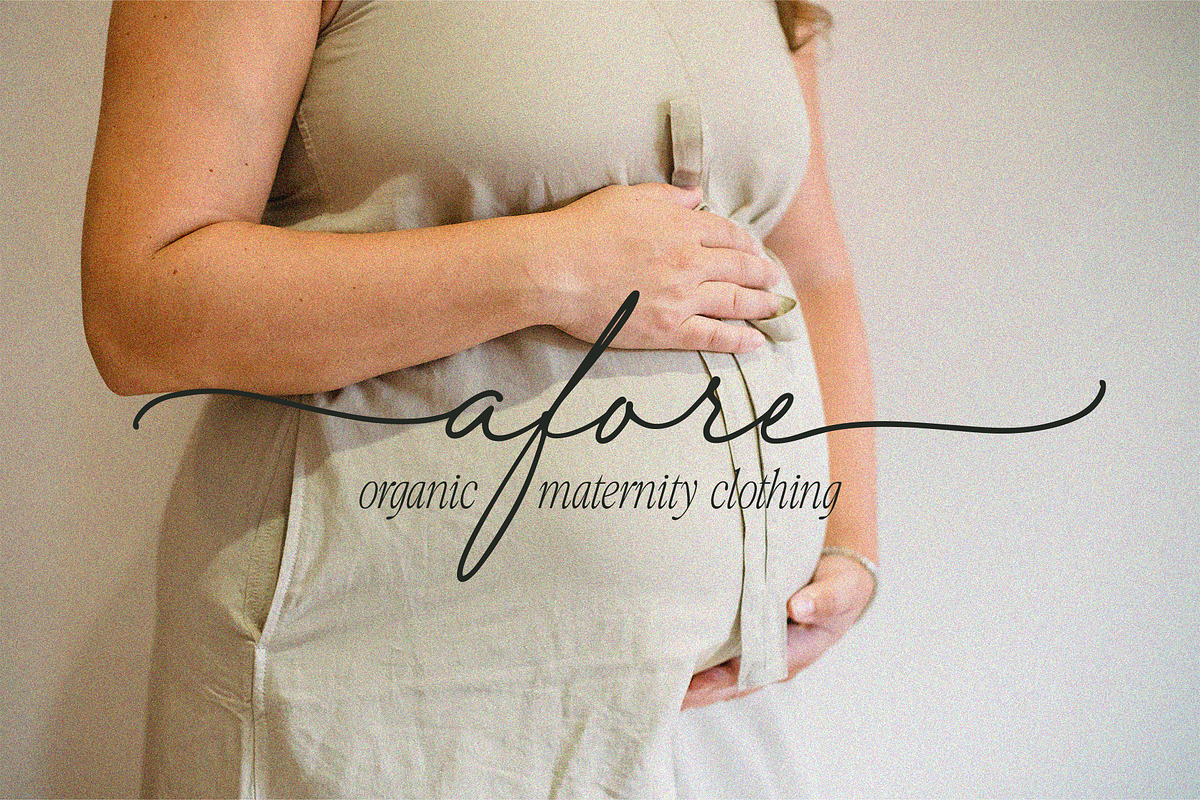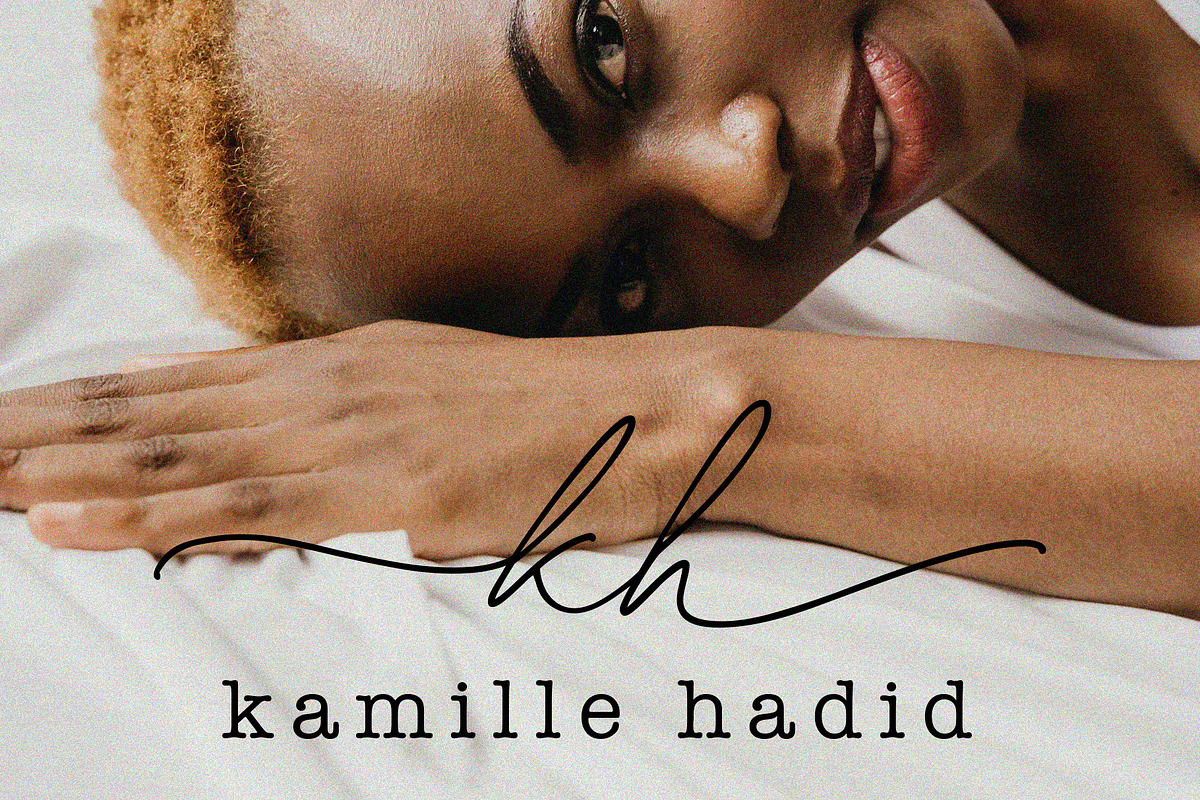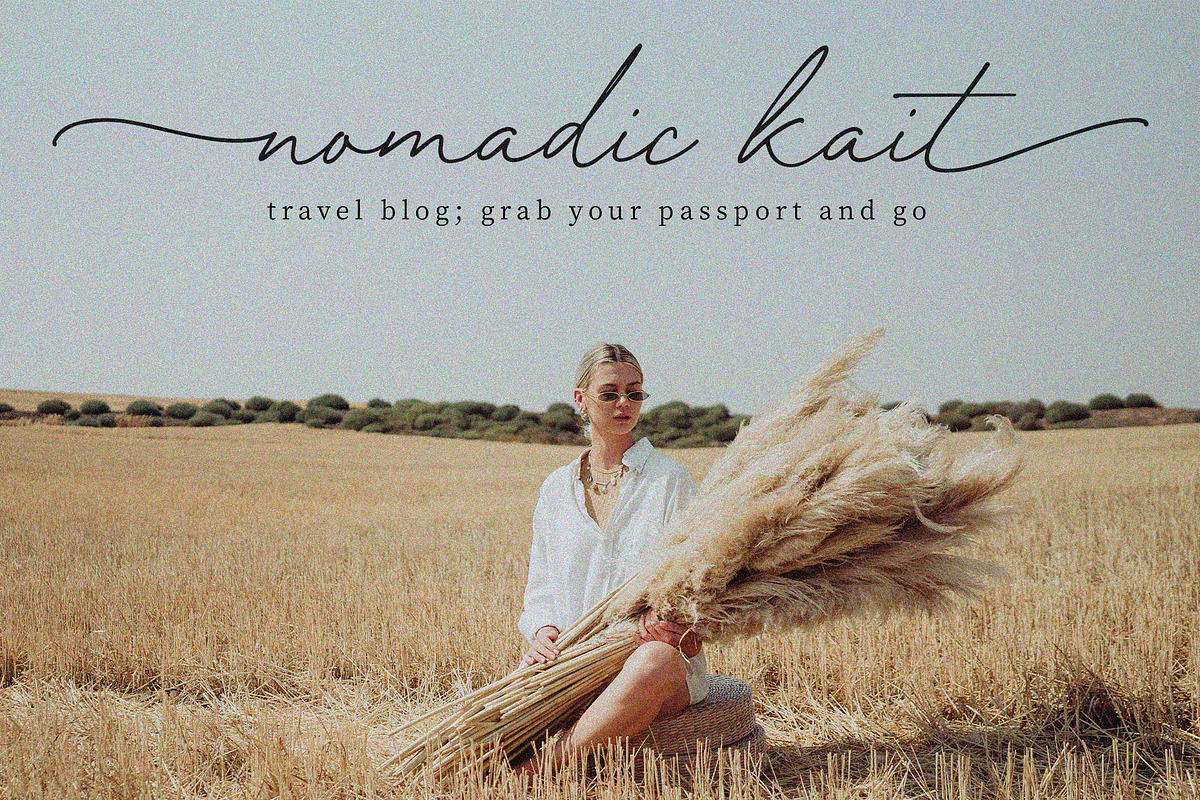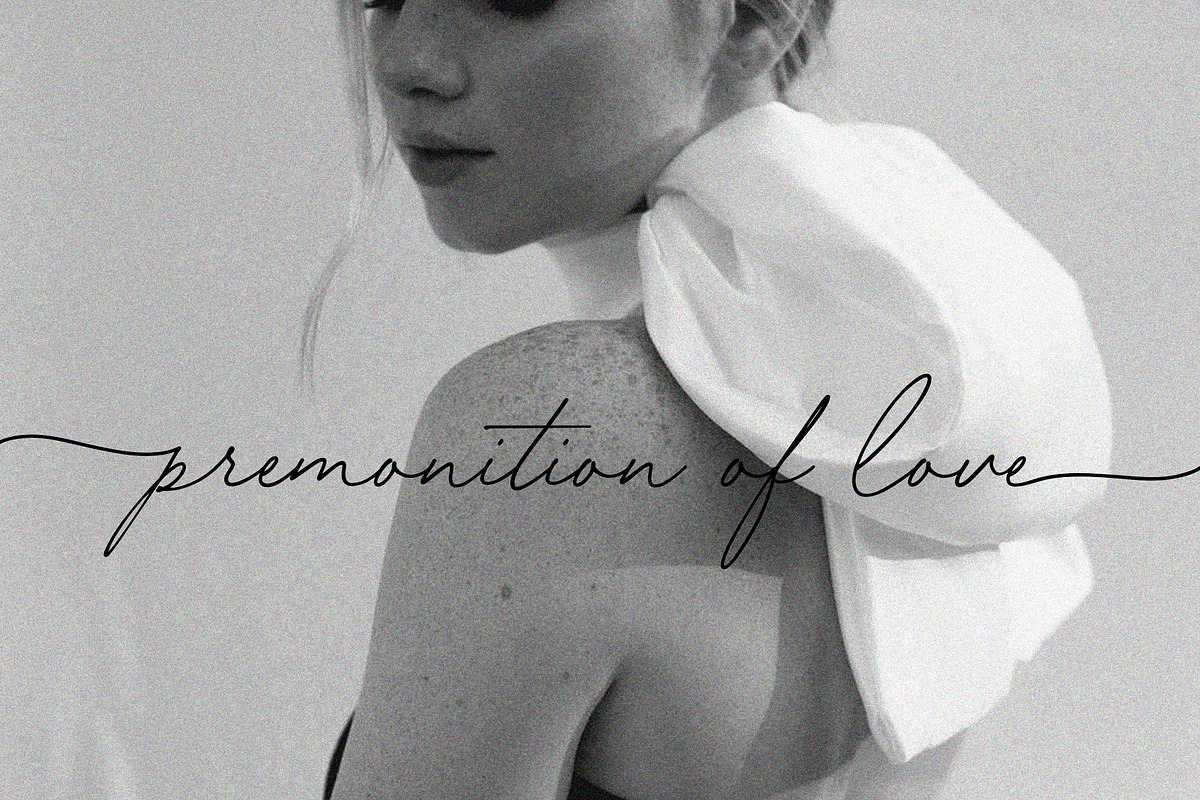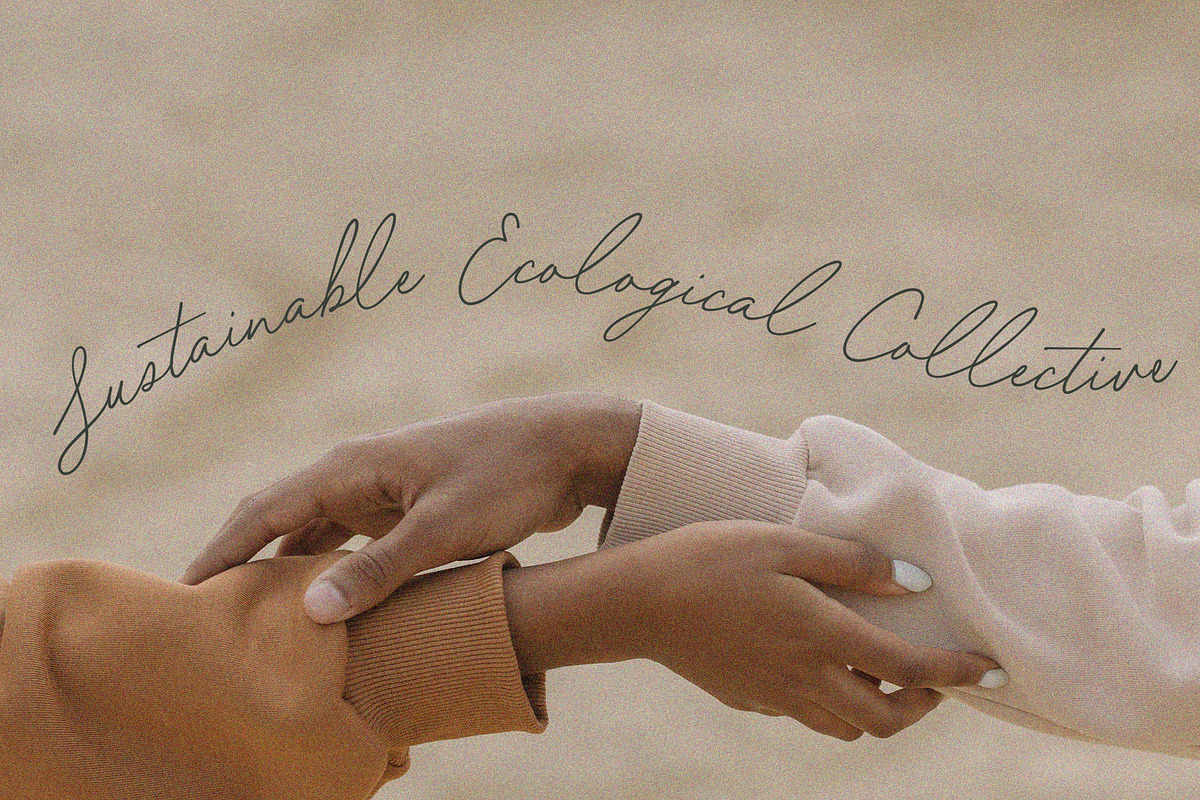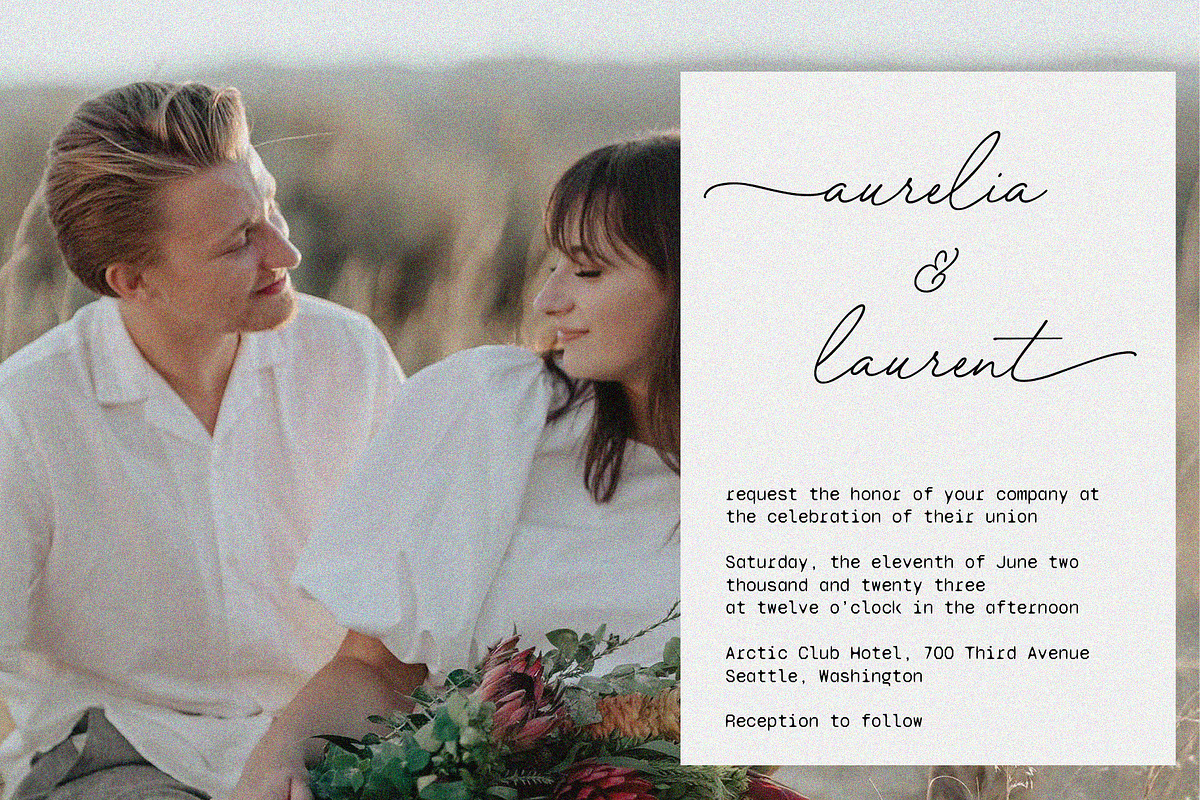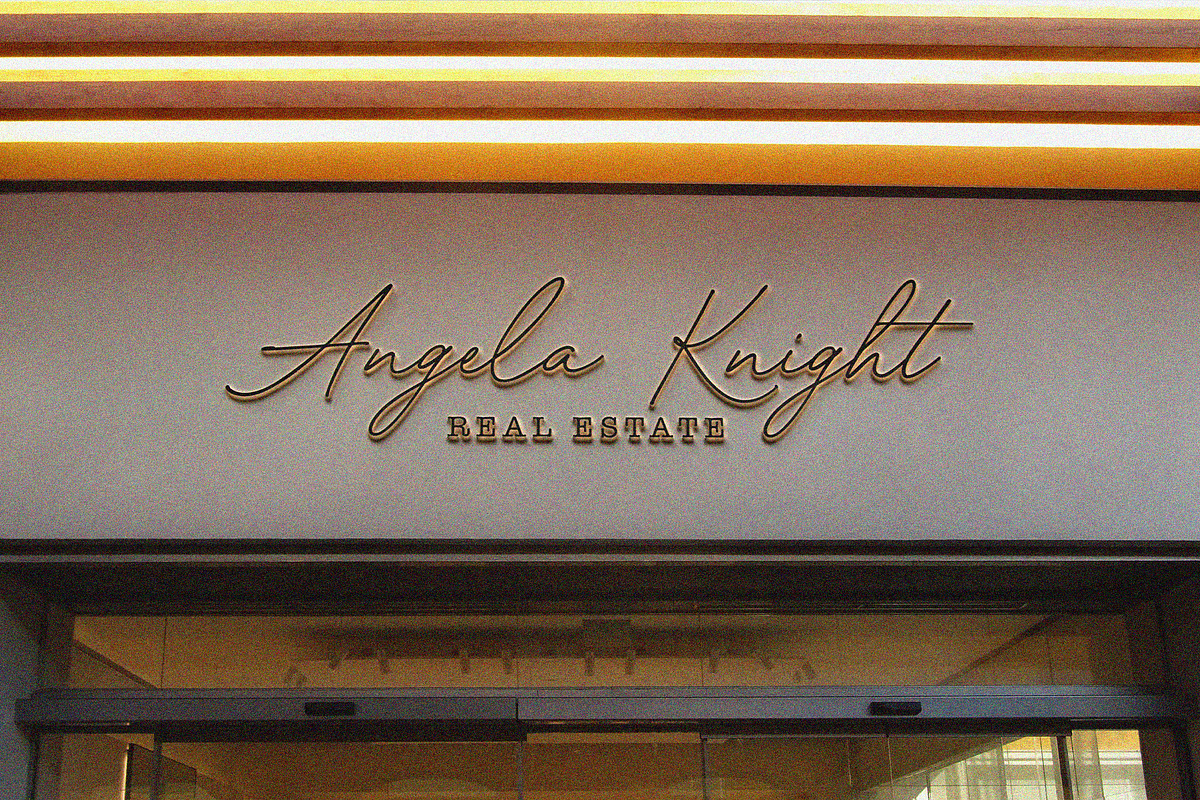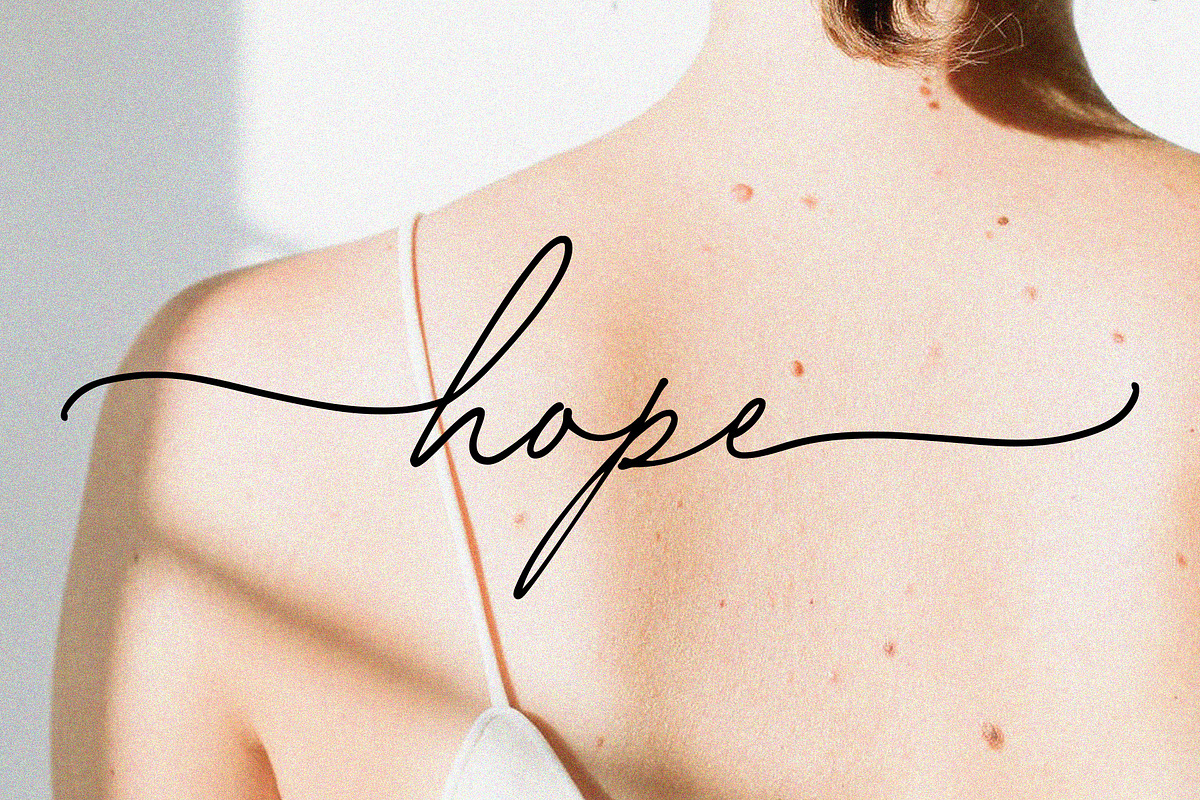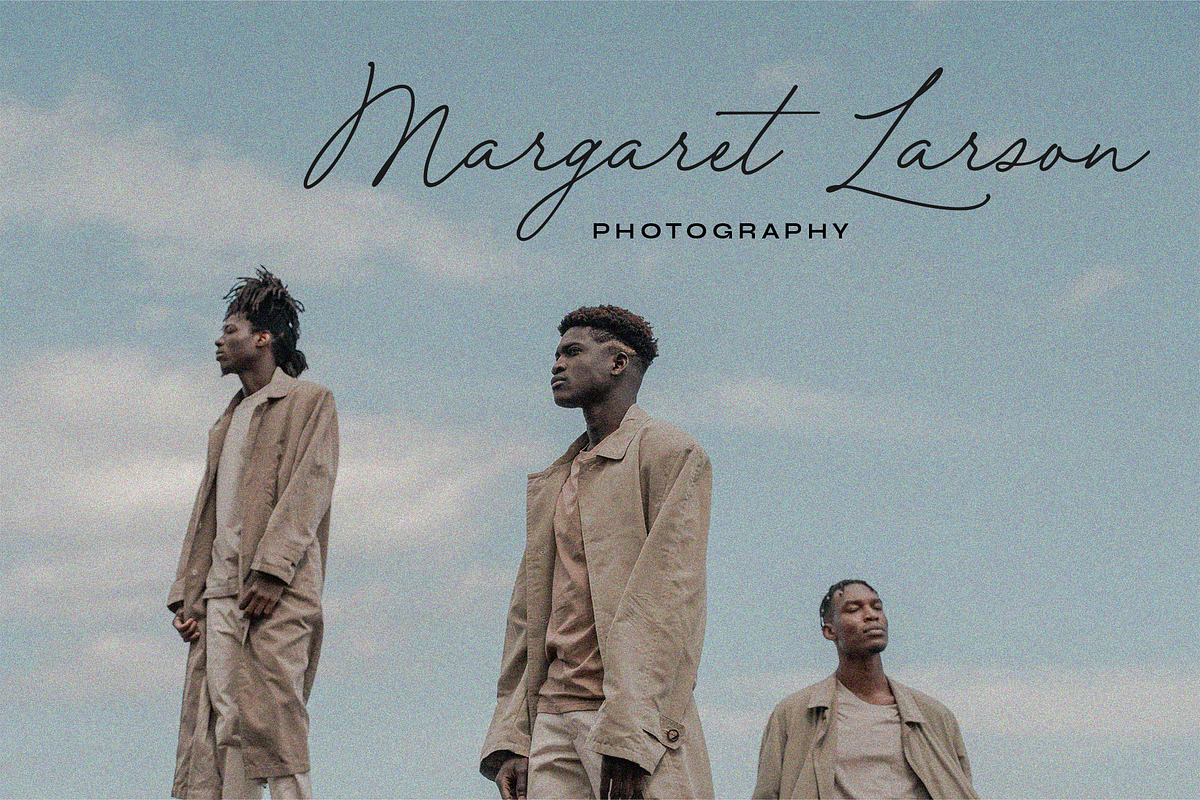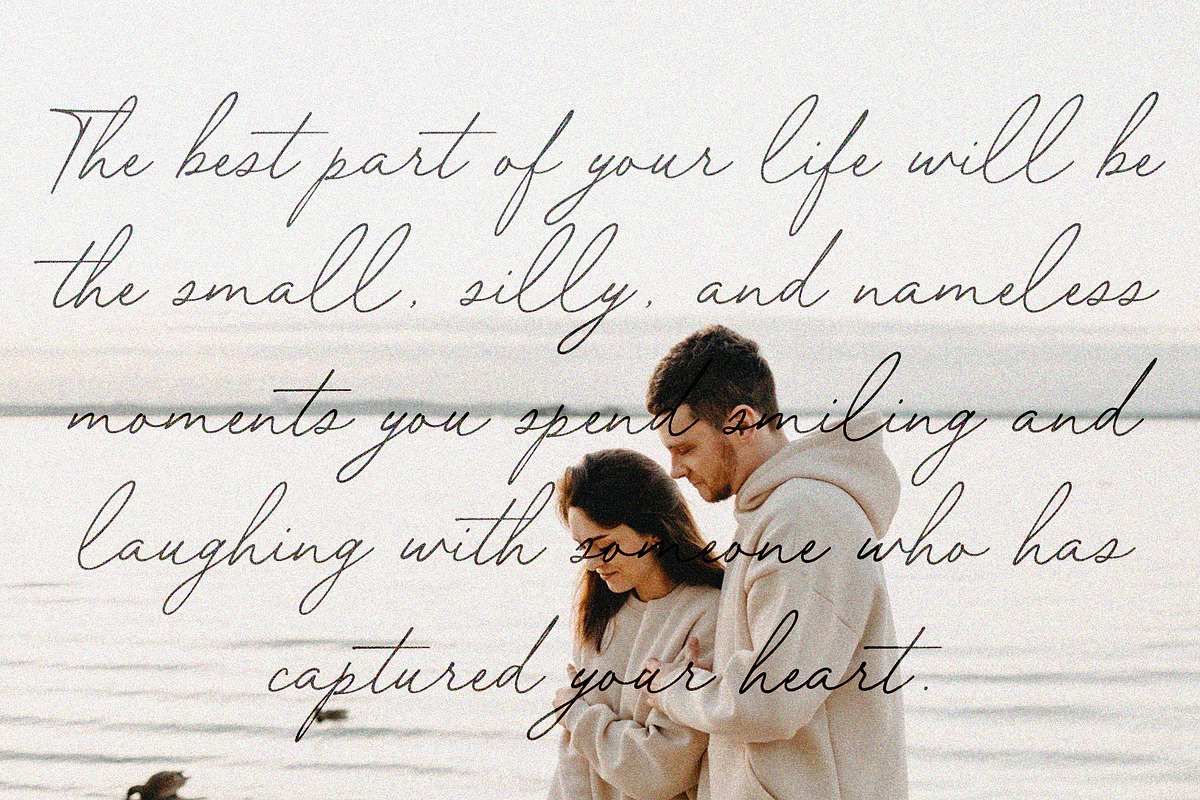
Forest Hill // Modern Script Font
Meet our brand new script font - Forest Hill!
It is a modern casual font with a full set of easygoing letters, numerals, and punctuation. The main feature of this font is that the letters are not separated. Just look how all the letters connect one by one and form one whole piece of writing. Featuring fabulous beginning and ending lowercase swashes, Forest Hill was inspired by clean handwriting with a natural flow and works well for various designs from wedding stationery to Instagram quotes, modern logos, packaging, websites, and many more.